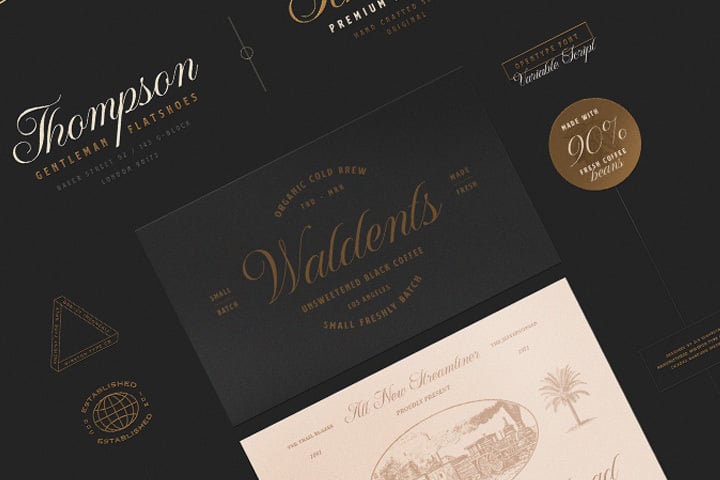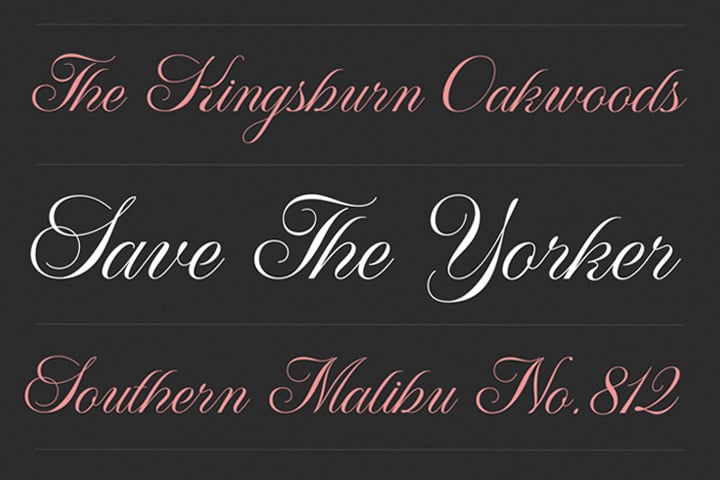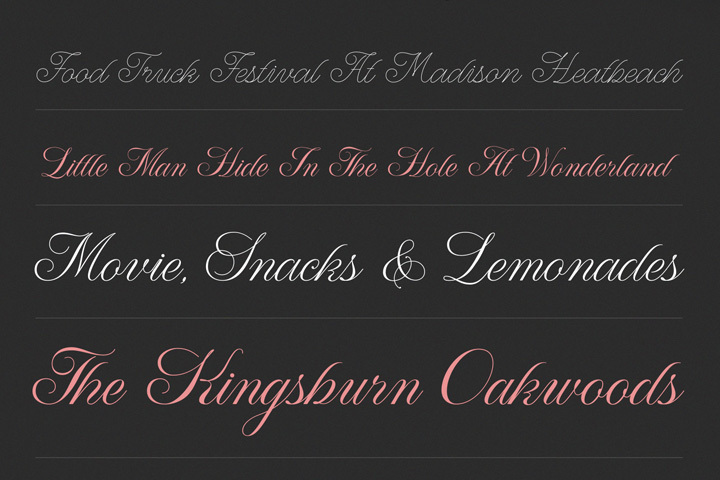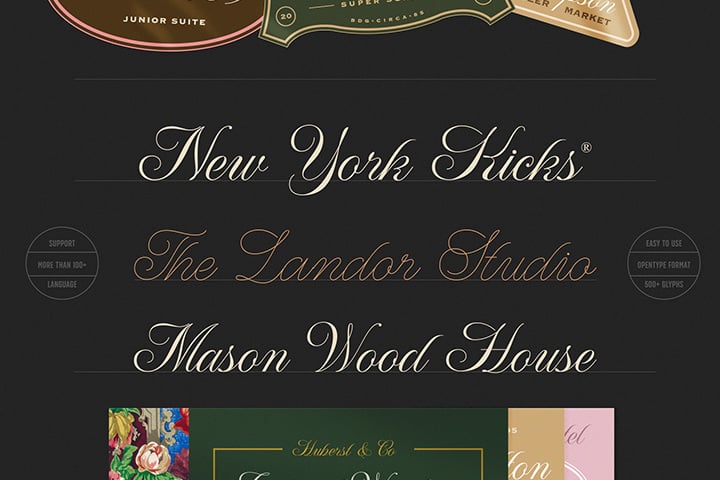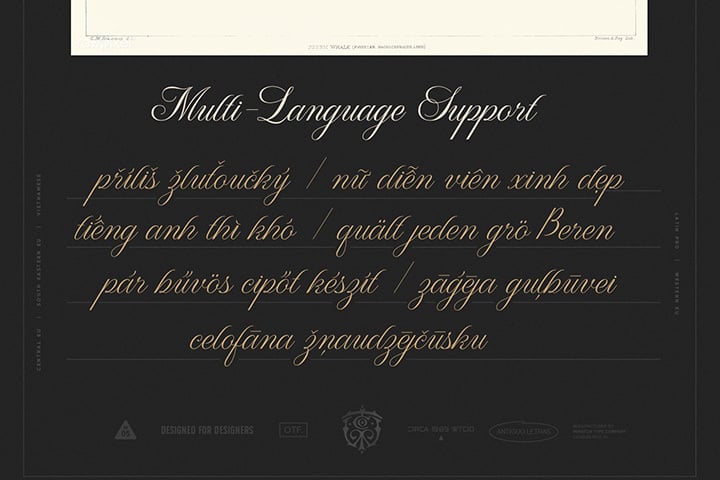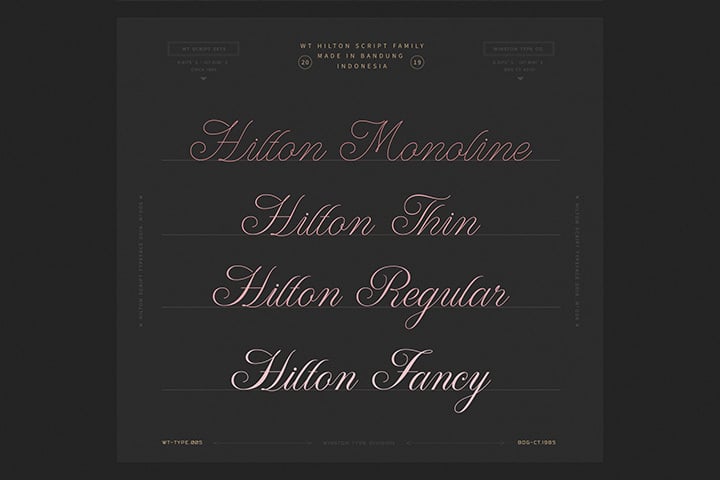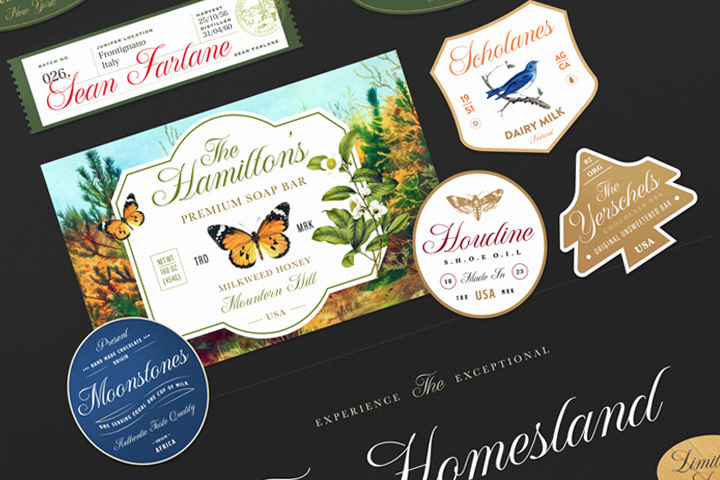
WT Hilton Monoline
WT Hilton Script - Monoline
WT Hilton Script is a font family of script that inspired from the Spencerian era in 1840. Contain more than 500 glyphs and 100+ support. The strokes are graceful and rhythmic, and letterforms are characterized by flowing loops and flourishes.
WT Hilton of four styles that variables from the Monoline to the thicker one called Hilton Fancy, each style are stand on its own character. WIth 100+ language support, WT Hilton is well-suited for such as prints, branding, magazine, headline, poster, packaging, weddings, headline, movie, title, logos, branding, invitations, quotes, social media, websites, magazine and so much more.